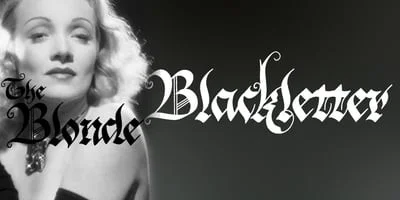
Blonde Fraktur Font
Blonde Fraktur Font is perfect for medieval-themed designs, Gothic revival branding, historical document recreations, luxury beer packaging, traditional tattoo artwork, ceremonial certificates, vintage book covers, and authentic Germanic restaurant menus.
This font is exciting because it modernizes the classic Fraktur tradition with contemporary elegance, bringing centuries-old Gothic letterforms into today's design landscape with refined sophistication. The Blonde Fraktur Font maintains the dramatic impact of traditional blackletter while offering improved readability and versatile application possibilities for modern creative projects.
The Blonde Fraktur Font family includes comprehensive Gothic variations such as Regular, Bold, Light, Ornamental, Condensed, Extended, Decorative, and Shadow versions, providing designers with complete medieval typography solutions for authentic historical and contemporary Gothic-inspired applications.
Embrace Gothic elegance with Blonde Fraktur Font that transforms ordinary text into extraordinary medieval masterpieces. This exceptional typeface bridges the gap between historical authenticity and modern design needs, making it ideal for brands seeking to convey tradition, craftsmanship, and timeless quality. The font's dramatic character creates immediate visual impact while maintaining surprising versatility across various media. Whether you're designing for craft breweries, luxury brands with heritage stories, or creative projects requiring Gothic atmosphere, Blonde Fraktur Font delivers the authentic blackletter typography that commands attention and respect. Its carefully balanced proportions ensure readability while preserving the majestic presence that makes Fraktur fonts so captivating and memorable.